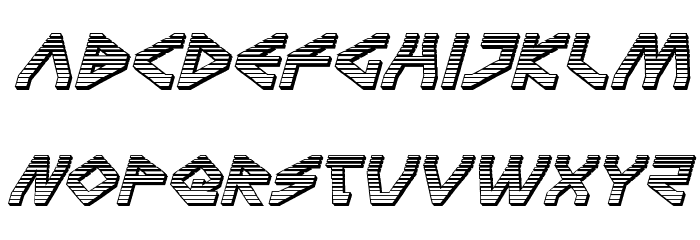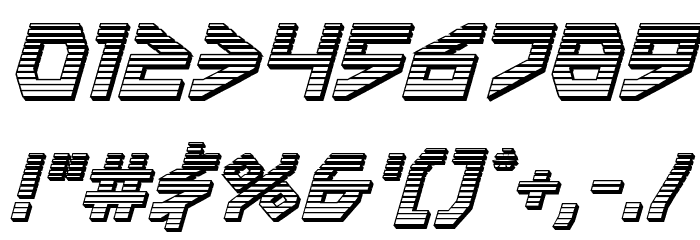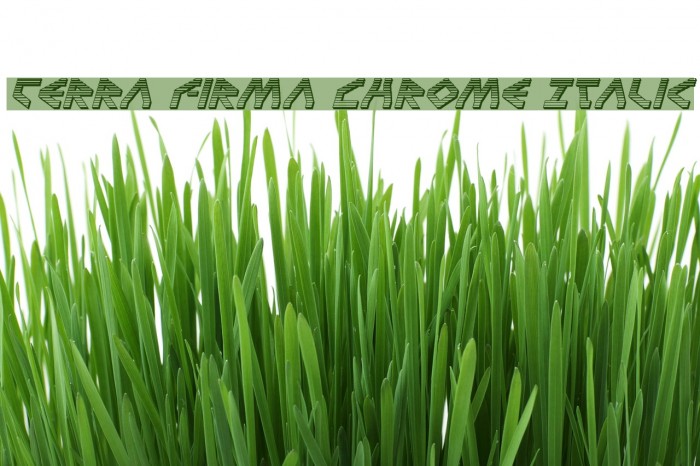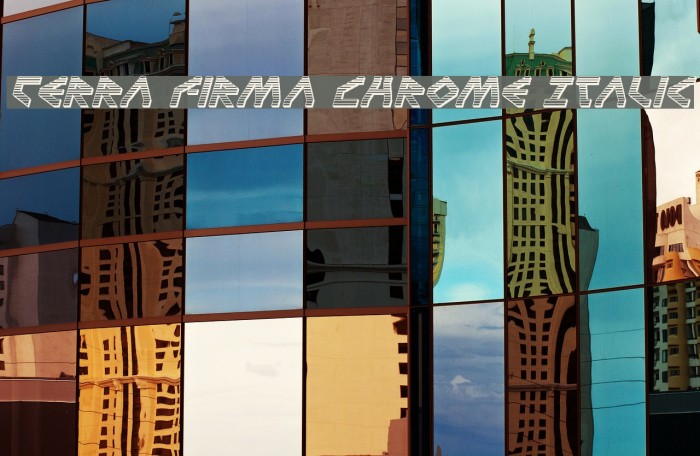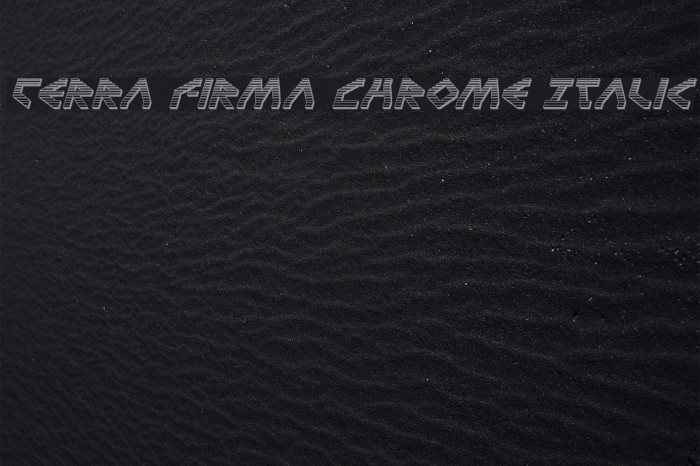
Terra Firma Chrome Italic Font
This font features a bold, futuristic design with a distinct three-dimensional effect created by parallel lines that give each character a chrome-like appearance. The italicized style adds a dynamic and forward-leaning aspect, enhancing its modern and edgy look. Each letter is constructed with precision, showcasing a geometric form that is both striking and unique. The uppercase and lowercase letters maintain a consistent style, while the numerals and special characters complement the overall aesthetic. The font's design is ideal for projects that require a strong visual impact, such as technology-related branding or sci-fi themed graphics.
A bold, futuristic font with a chrome-like, three-dimensional effect and italicized style.
- Proposed Projects: Ideal for technology branding, sci-fi graphics, futuristic posters, and video game titles.
- Overall Style: Futuristic, Modern